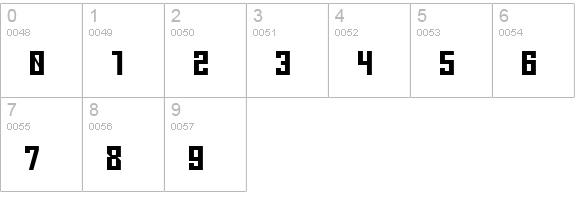
Gagarin Font Details
Gagarin font is a stunning typeface that captures the essence of boldness and creativity. With its sleek and modern design, this font is perfect for those seeking to make a statement with their typography. The clean lines and distinctive curves of Gagarin font lend themselves to a wide range of design projects, from logos and branding to posters and websites. What sets Gagarin font apart is not only its captivating visual appeal, but also the fact that it is available for free. Yes, you read that right! Gagarin font is freely available to download at FontsMarket.com, making it accessible to designers and enthusiasts alike. This generous offering allows anyone to elevate their design work without breaking the bank. Whether you're a professional designer looking to add a touch of elegance to your projects or a hobbyist exploring the world of typography, Gagarin font is a must-have in your collection. Its versatility and eye-catching style make it suitable for a wide range of applications, giving you the freedom to express your creativity in countless ways. The attention to detail in Gagarin font is evident from the carefully crafted letterforms to the seamless spacing and kerning. Each character is meticulously designed to ensure legibility and visual impact, making it a joy to work with. With a wide range of weights and styles available, Gagarin font offers endless possibilities to create stunning designs that stand out from the crowd. So why wait? Download Gagarin font for free at FontsMarket.com and unlock a world of possibilities for your design projects. Whether used for personal or commercial purposes, this font is sure to leave a lasting impression on anyone who encounters it. Embrace the beauty of Gagarin font and let your creativity soar to new heights.